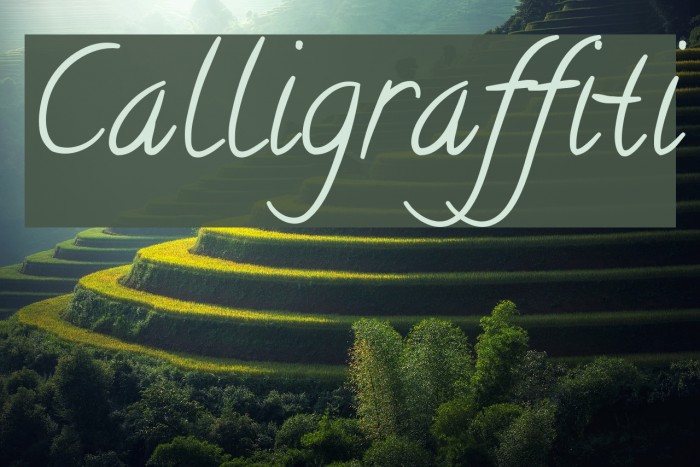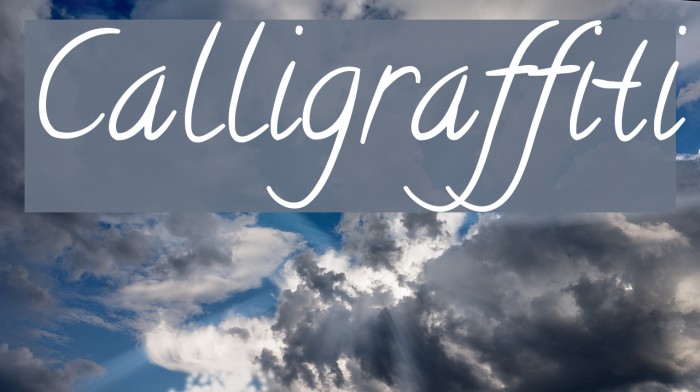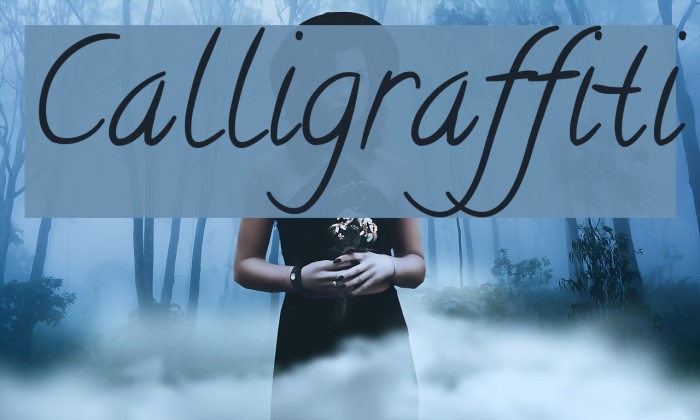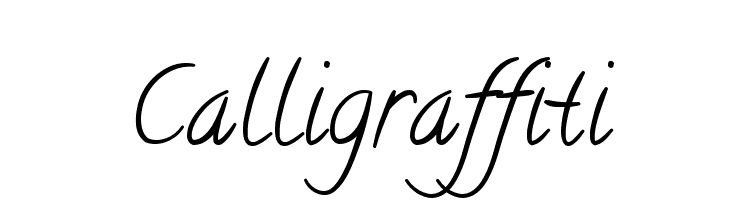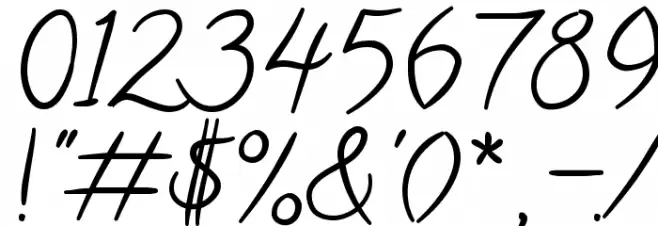
Calligraffiti Font
This font exudes a dynamic and artistic flair, combining elements of calligraphy with a modern graffiti style. The uppercase letters are elegantly curved with a fluid motion, while the lowercase letters maintain a consistent flow, enhancing readability. The numerals are distinct and bold, complementing the overall style with their clear and legible design. Special characters are creatively integrated, adding a unique touch to the font's personality. The strokes vary in thickness, providing a medium contrast that emphasizes its artistic nature.
A dynamic blend of calligraphy and graffiti with fluid, artistic strokes.
- Proposed Projects: Ideal for creative projects such as logo design, event invitations, artistic posters, and branding materials that require a unique and expressive touch.
- Overall Style: Modern, Decorative
- Use Case: Logos, Artistic projects, Invitations